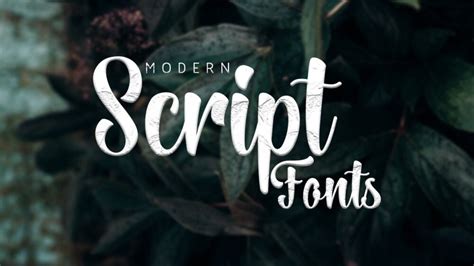
Elegant Script Fonts for Stunning LaTeX Documents
Readers, have you ever wished your LaTeX documents could exude an air of sophistication and charm? Imagine your thesis, research paper, or even a simple invitation taking on a new level of visual appeal, all thanks to the right font choice. But finding the perfect script font for LaTeX can feel like searching for a needle in a haystack. Luckily, you've come to the right place!
I've dedicated myself to exploring the world of elegant script fonts for LaTeX and have uncovered a treasure trove of options that are sure to elevate your documents. This comprehensive guide will delve into the best script fonts available, discuss their unique characteristics, and provide practical tips for incorporating them seamlessly into your LaTeX projects. So, get ready to unleash your inner typographer and transform your LaTeX documents into works of art.
The Allure of Script Fonts in LaTeX
Script fonts, with their flowing strokes and elegant curves, possess a timeless appeal that transcends generations. They evoke feelings of sophistication, creativity, and a touch of vintage charm. But beyond aesthetics, script fonts can enhance the readability and overall impact of your LaTeX documents. Here's why:
Enhanced Readability
While script fonts are often associated with fancy or decorative styles, they can be surprisingly readable when chosen carefully. Opting for script fonts with a clear baseline, good spacing, and a balanced weight can create a visually appealing and effortless reading experience.
Added Visual Interest
Script fonts can break the monotony of traditional serif and sans-serif fonts, adding a subtle touch of personality and flair to your LaTeX documents. They can be used for titles, headings, or even specific sections, drawing the reader's eye and adding depth to the overall design.
A Touch of Elegance
Script fonts have a natural ability to elevate the sophistication of any document. Their flowing curves and graceful forms exude an air of elegance, making them ideal for formal documents, invitations, or any project where you want to make a lasting impression.
Exploring the Best Script Fonts for LaTeX
Now that we've established the allure of script fonts in LaTeX, let's dive into the heart of the matter: the best script fonts to grace your documents. This curated selection offers a range of styles, from classic and traditional to modern and playful, catering to a variety of needs and tastes.
Classic and Traditional Script Fonts
These fonts embody the essence of elegance, drawing inspiration from calligraphy and historical scripts. They are characterized by their graceful curves, elaborate flourishes, and a timeless appeal.
1. Pacifico
Pacifico is a charming and playful script font that brings a hand-lettered feel to LaTeX documents. With its rounded letters and playful curves, it adds a touch of whimsy and personality. Perfect for invitations, headers, or even casual reports.
2. Allura
Allura is a more formal and elegant script font, with a refined and sophisticated aesthetic. Its bold strokes and intricate details create a striking visual impact, making it ideal for titles, headings, and any document where you want to convey a sense of prestige.
3. Lobster
Lobster is a bold and whimsical script font with a distinctive personality. Its large, rounded letters and playful curves evoke a sense of fun and informality, making it perfect for headlines, posters, or any project where you want to grab attention.
Modern and Playful Script Fonts
These fonts embrace a contemporary aesthetic, capturing the spirit of modern design with sleek lines, simplified strokes, and a sense of energy. They are perfect for adding a touch of vibrancy and individuality to your LaTeX documents.
1. Satisfy
Satisfy is a bold and playful script font with a distinctive, almost cartoonish aesthetic. Its exaggerated curves and playful flourishes add a sense of fun and energy to your LaTeX documents, making it ideal for headers, invitations, or any project where you want to stand out.
2. Dancing Script
Dancing Script is a fluid and elegant script font that evokes a sense of motion and grace. Its flowing strokes and playful curves make it perfect for adding a touch of whimsy and personality to your LaTeX documents, especially for invitations, headers, or even creative writing projects.
3. Permanent Marker
Permanent Marker is a fun and casual script font that captures the hand-lettered feel of a marker pen. With its rough edges and slightly skewed letters, it adds a touch of informality and personality to your LaTeX documents, making it perfect for posters, flyers, or even casual reports.
Serif Script Fonts
Serif script fonts combine the elegance of script with the classic appeal of serif fonts. They offer a unique blend of sophistication and readability, making them ideal for a wide range of LaTeX documents.
In conclusion, embracing elegant script fonts opens up a world of possibilities for enhancing the visual appeal of your LaTeX documents. From classic and traditional styles to modern and playful options, the right script font can transform your research papers, invitations, and even creative writing into works of art. So, go forth, explore the vast library of script fonts available, and unleash your inner typographer! And as you embark on your journey, don't forget to check out other articles on our website, where you can find even more tips and tricks to elevate your LaTeX skills to new heights.